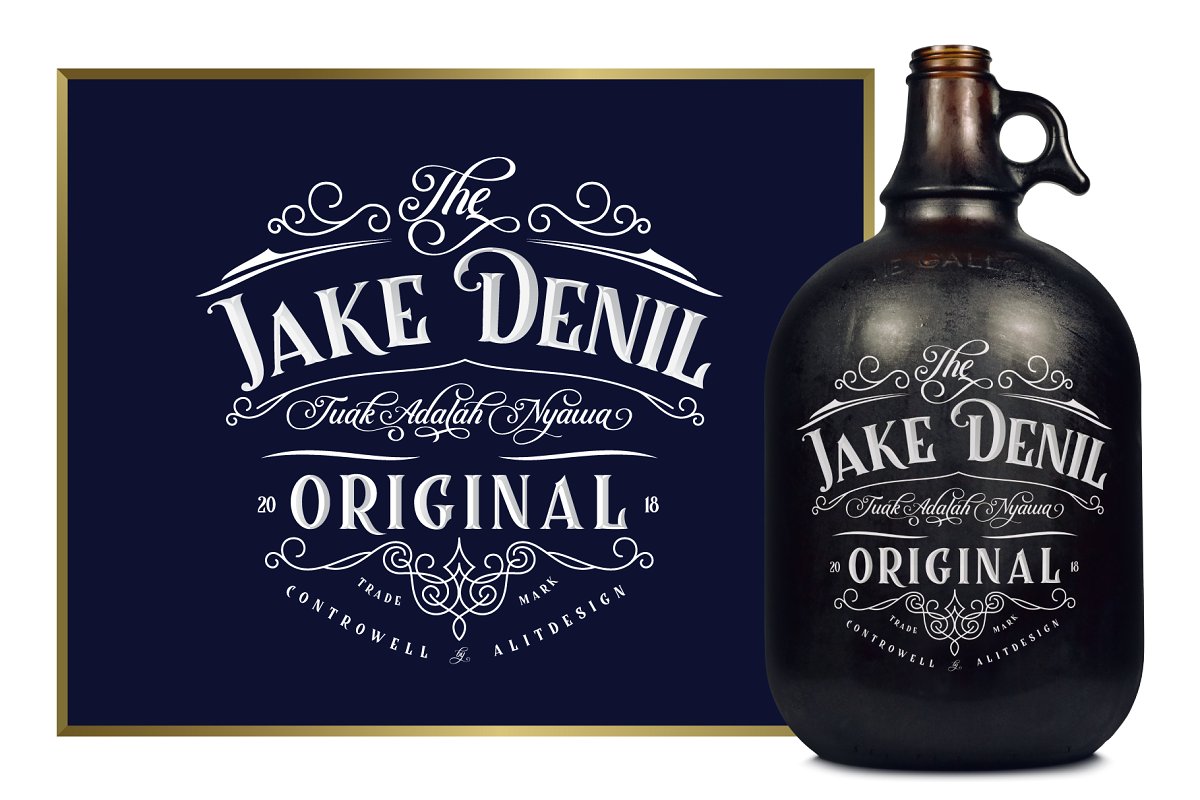
Controwell Victorian Typeface
Hello Guys! We always want to introduce the best typography to you, and now is a special calligraphy font. A calligraphy font perfect for all your design and print projects. Introducing Controwell Script Font. Controwell Typeface which adheres to Serif and Script style. Controwell Serif Regular has 2 layers that give a cool metal effect. Besides that, there are many alternative character choices that suit your taste. This font is very suitable for logotype design, packaging design, beer design, vodka, whiskey label, poster design, victorian book cover and more designs.